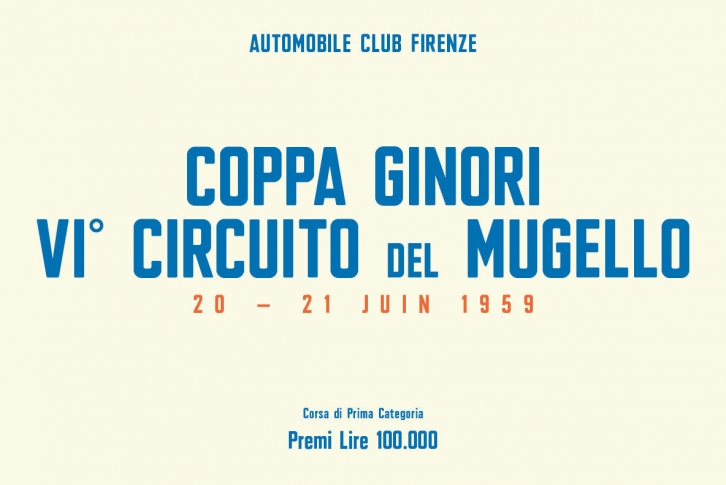
Autostrada is a utilitarian typeface based on vintage Italian highway lettering. It is strong, forthright, and confident. Autostrada’s condensed and slightly softened forms look just as good tracked out as it does set tightly. Use it for editorial layouts, signage, or anywhere you need bold type to make an impact. It can simultaneously feel classic and contemporary.
- Numerical alternates
- Fractions